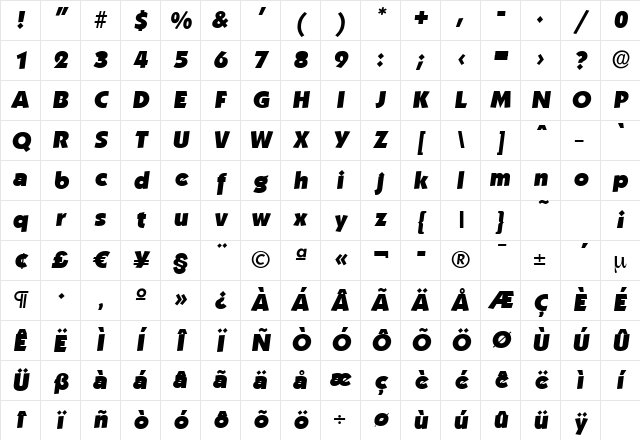
Complete VictorBecker-Heavy Italic glyph index. Displaying only characters natively supported by VictorBecker-Heavy Italic font.
VictorBecker-Heavy is a composed and adaptable typeface that performs quietly and consistently across a wide range of design contexts. The slanted form adds forward momentum and visual energy.